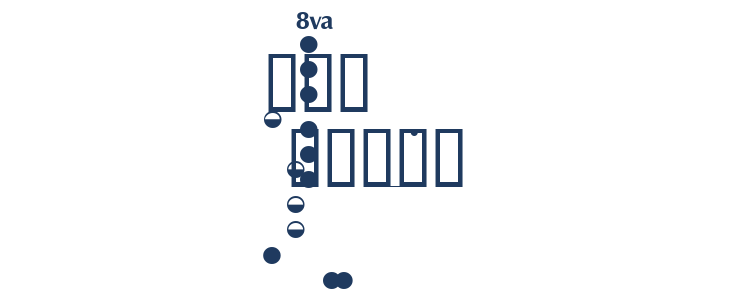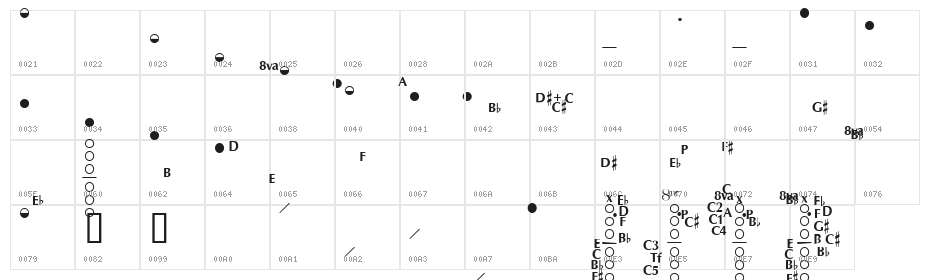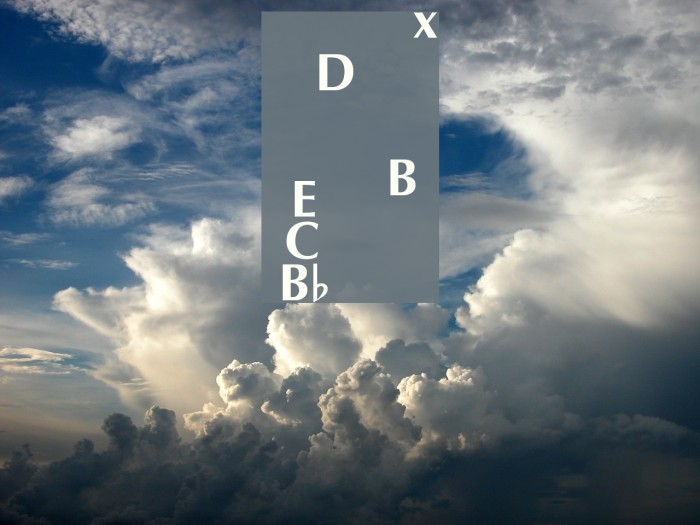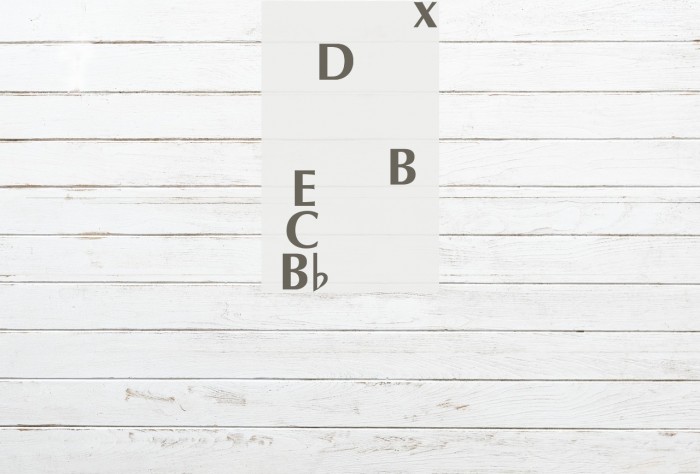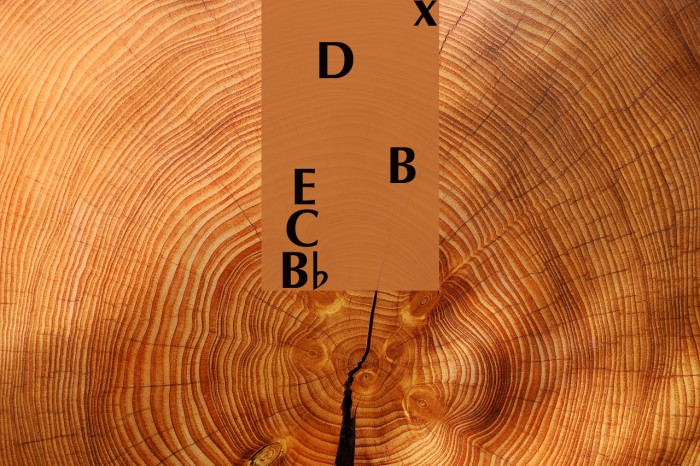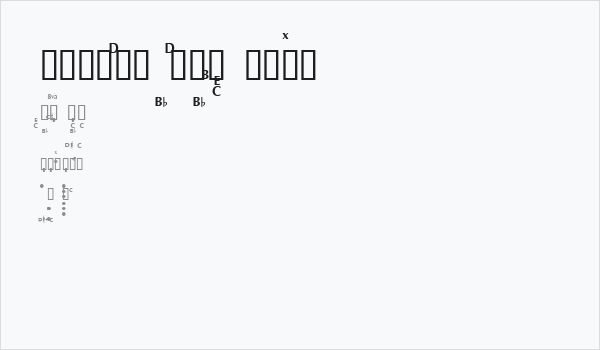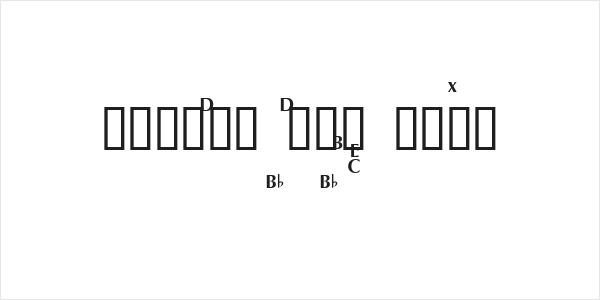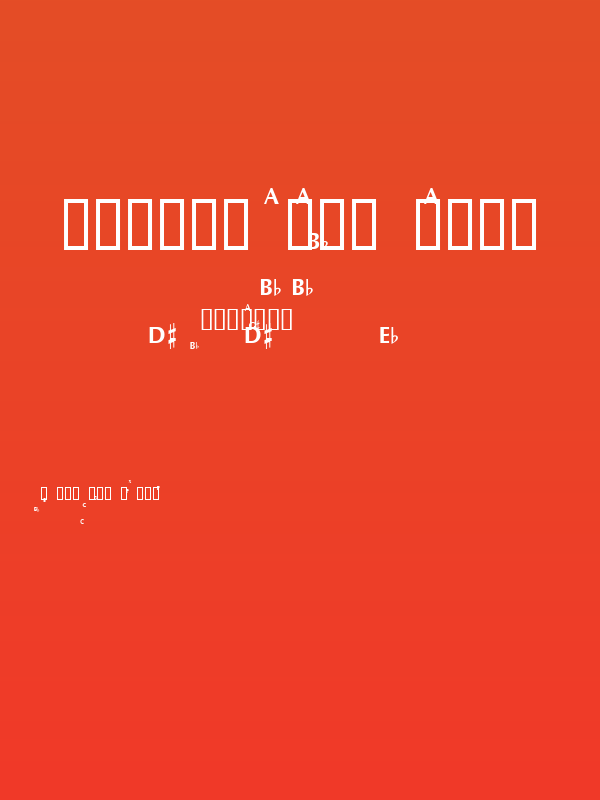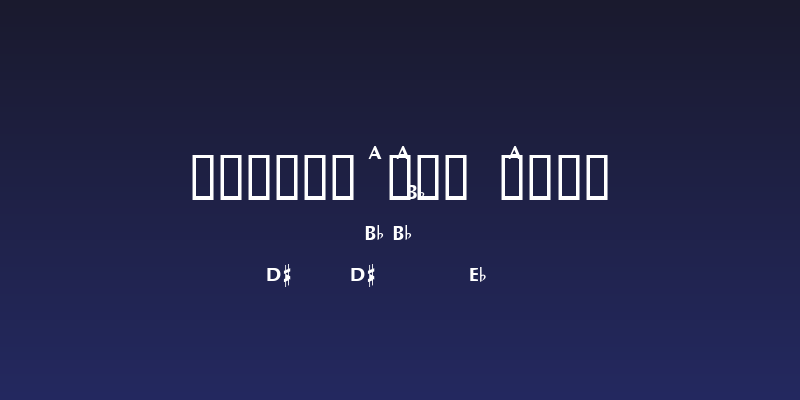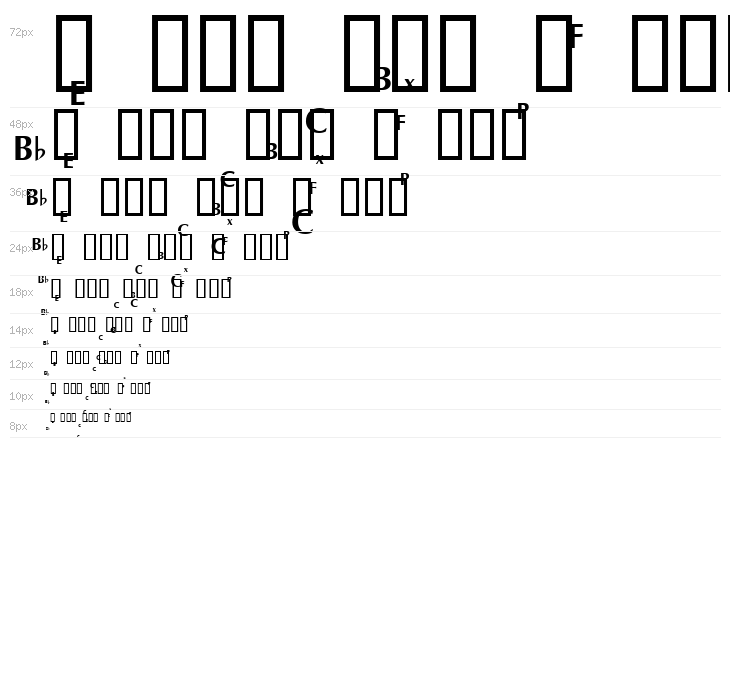
Woodwind Tablature SaxUS Font
Woodwind Tablature SaxUS Description
This is a pictographic or symbolic font designed for woodwind tablature notation, specifically for saxophone. The characters consist of rectangular outlines and filled circles, representing fingerings and musical instructions rather than traditional alphanumeric glyphs.
Overall StyleFunctional, instructional, geometric
Use CaseMusical notation, instructional diagrams
Proposed ProjectsSheet music for saxophone, educational materials for woodwind instruments, instructional diagrams.